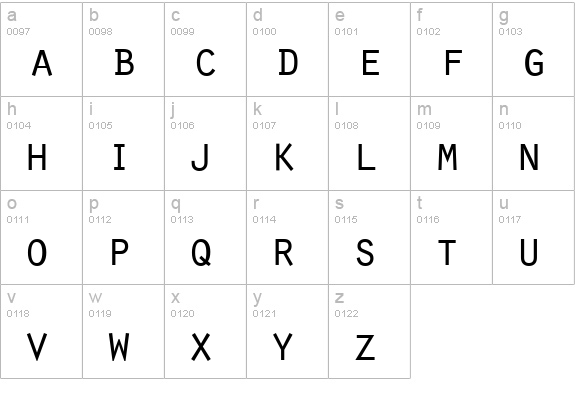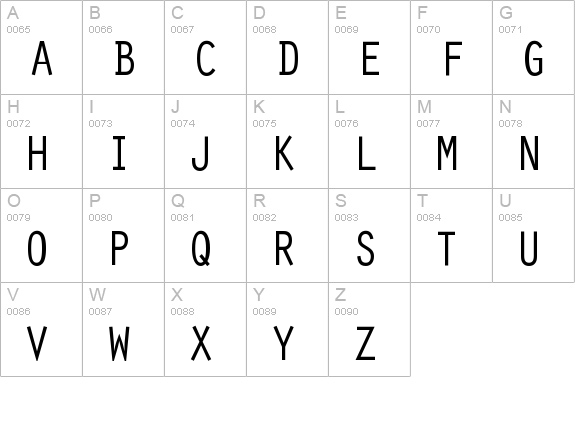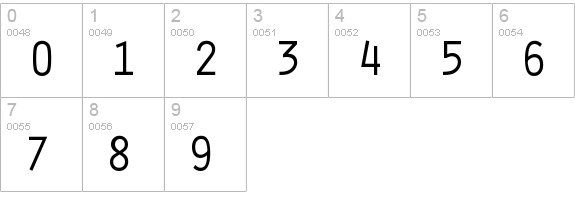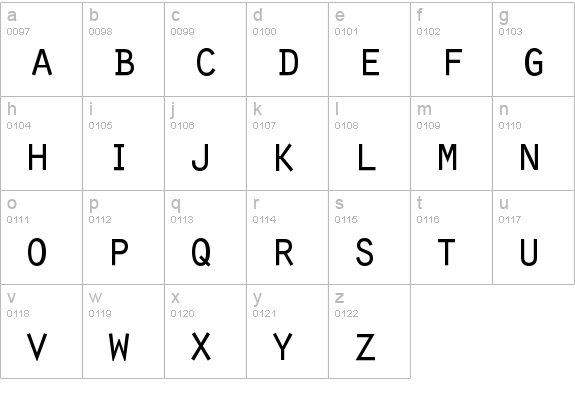
Orator-Regular is the standard, neutral variant in the Orator typeface family \xE2\x80\x94 well suited to general body text, paragraphs, and standard typographic work.
Orator-Regular is a versatile and modern font that exudes confidence and professionalism. With its clean lines and classic aesthetic, this typeface is perfect for a wide range of design projects, from sleek presentations to elegant branding. The Orator-Regular font strikes the perfect balance between readability and style, making it a popular choice for both print and digital media. The best part? Orator-Regular is completely free to download at FontsMarket.com! Whether you're a seasoned designer looking to refresh your font collection or a beginner seeking high-quality resources, Orator-Regular is a fantastic addition to your toolkit. Don't miss out on the opportunity to enhance your projects with this sleek and sophisticated font – download Orator-Regular today and elevate your designs to the next level.